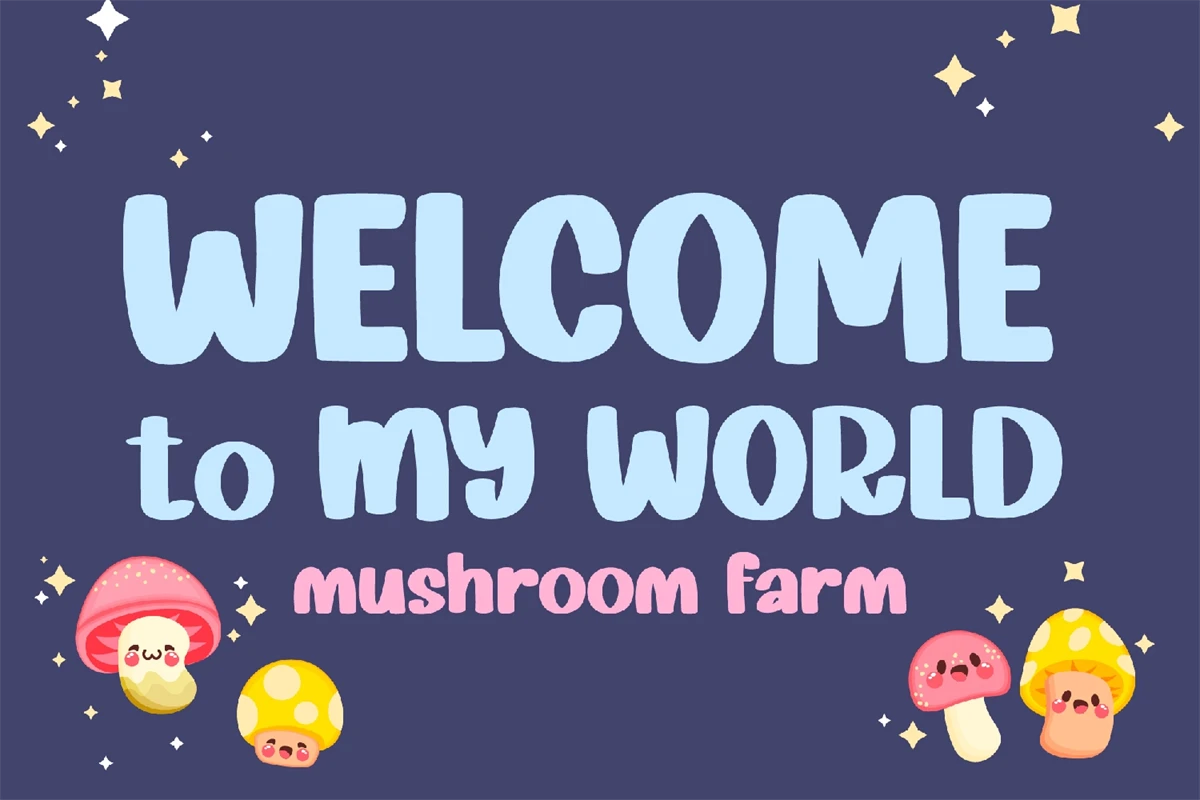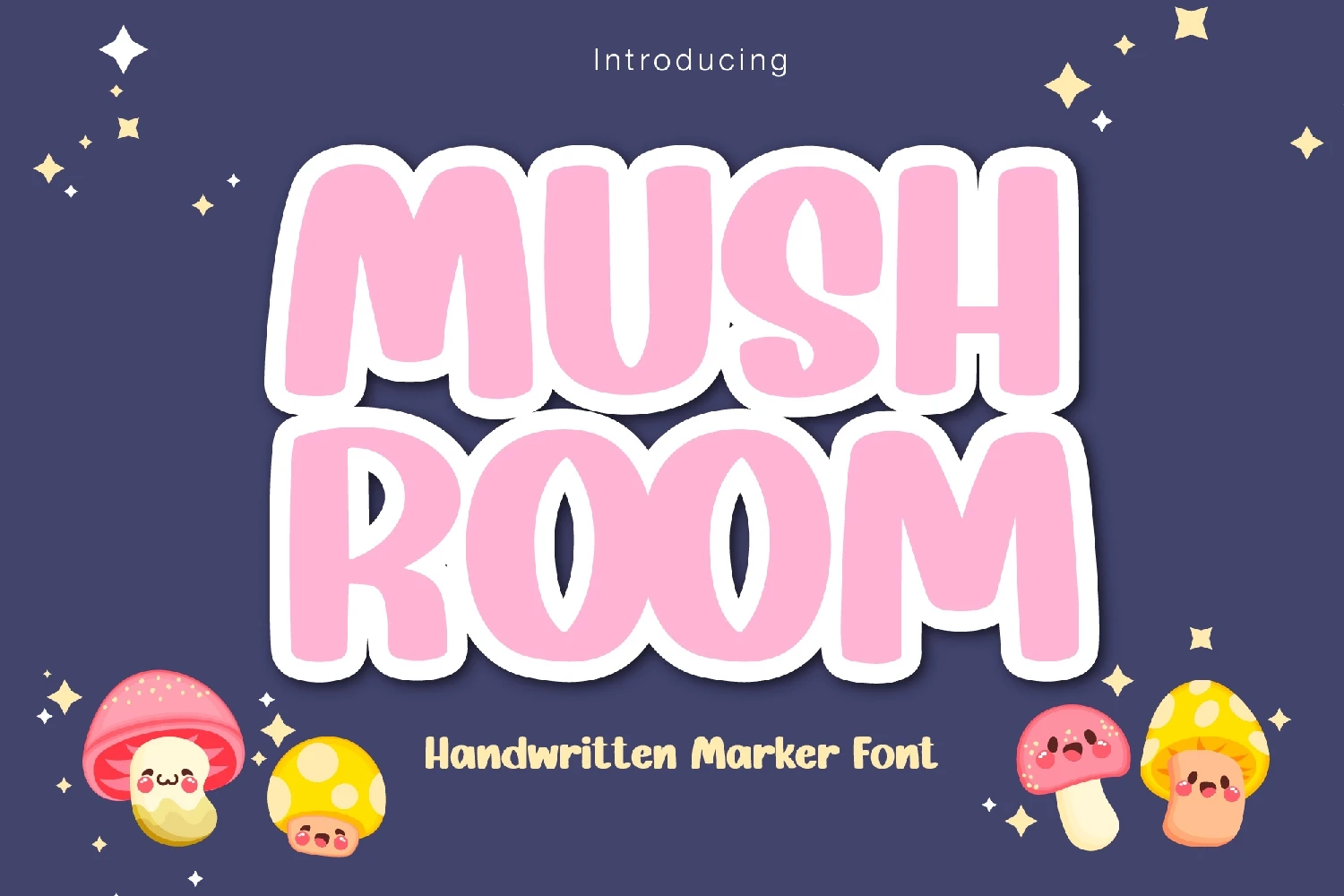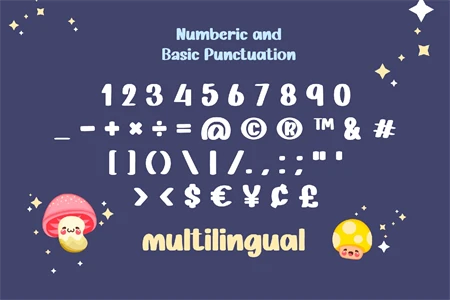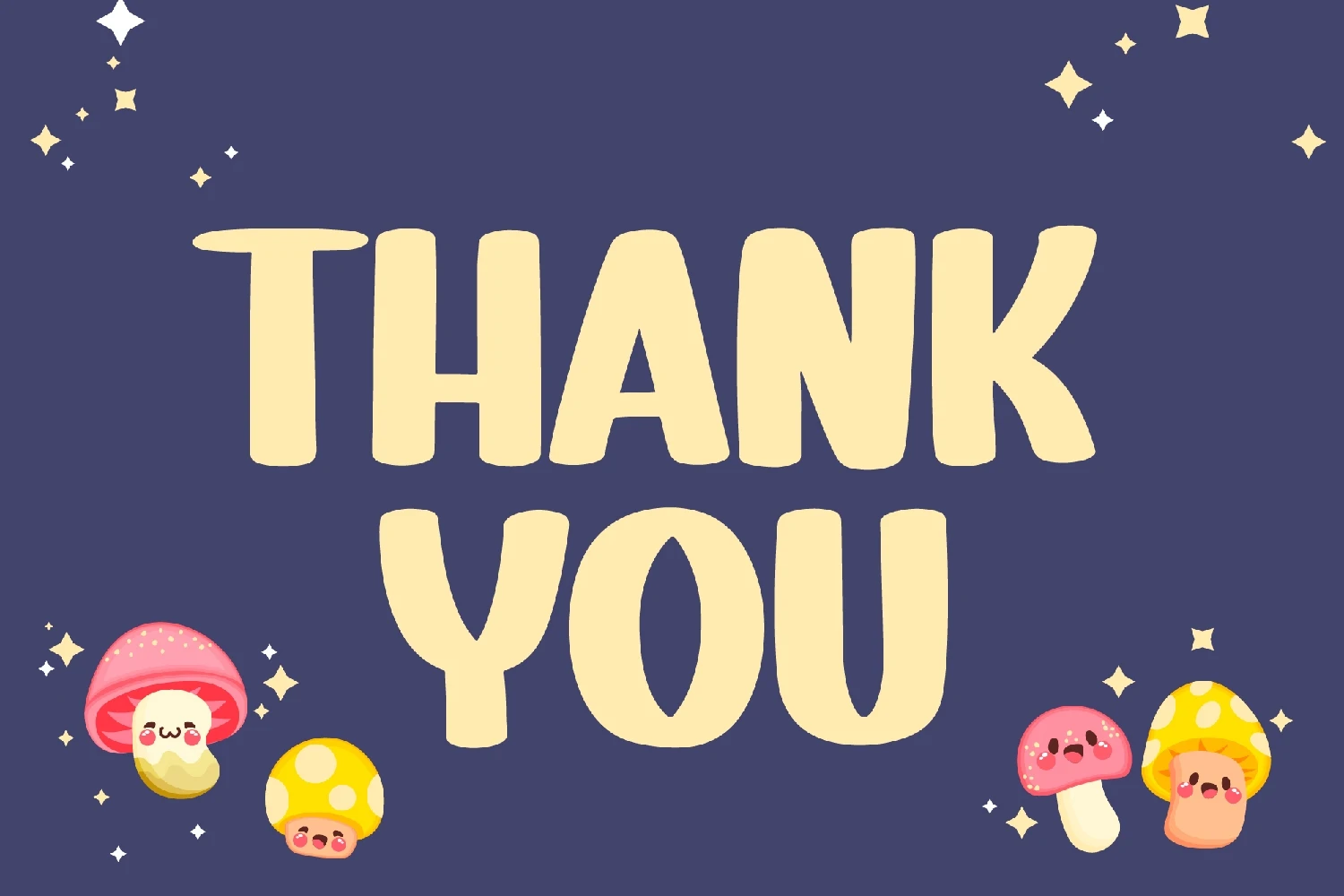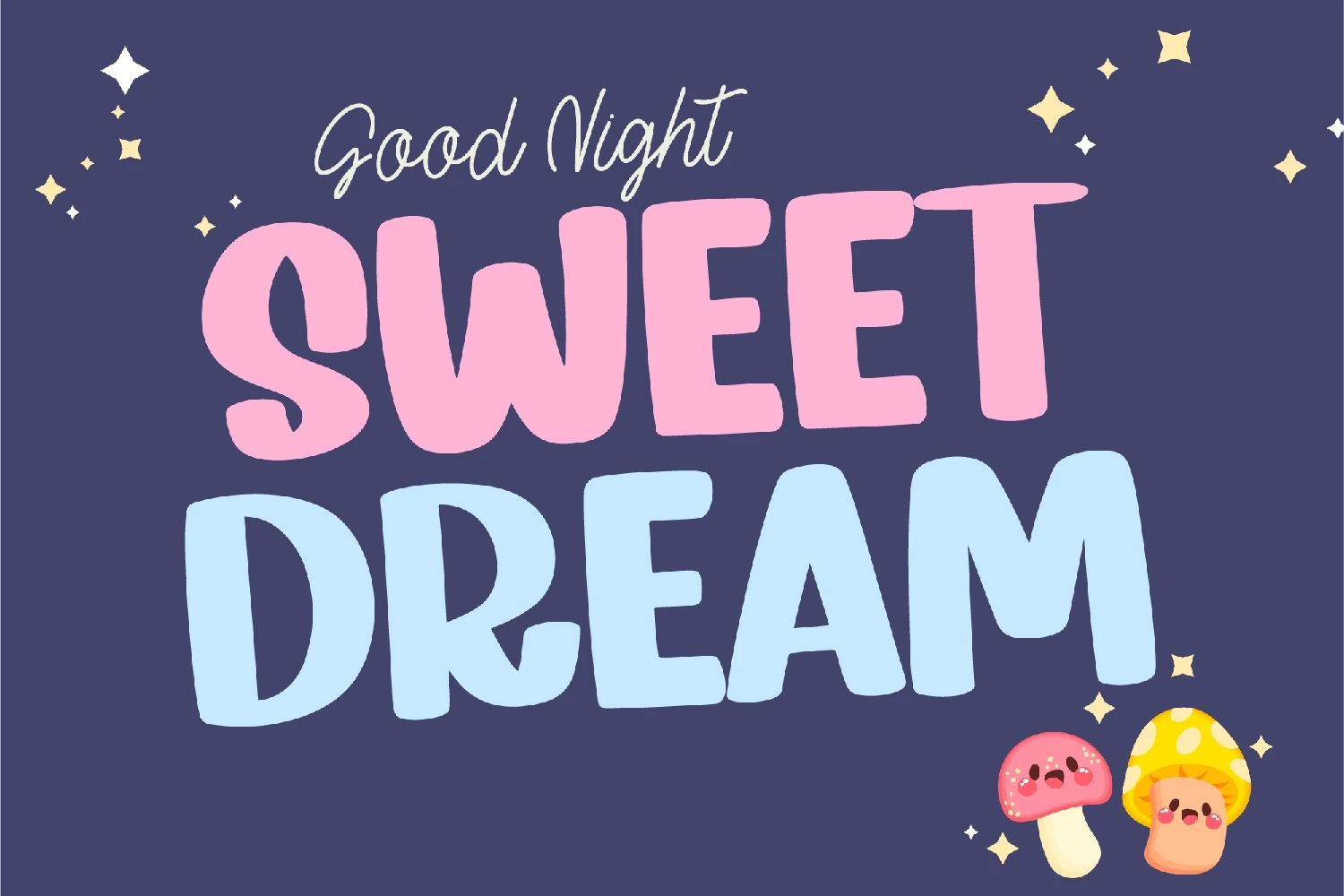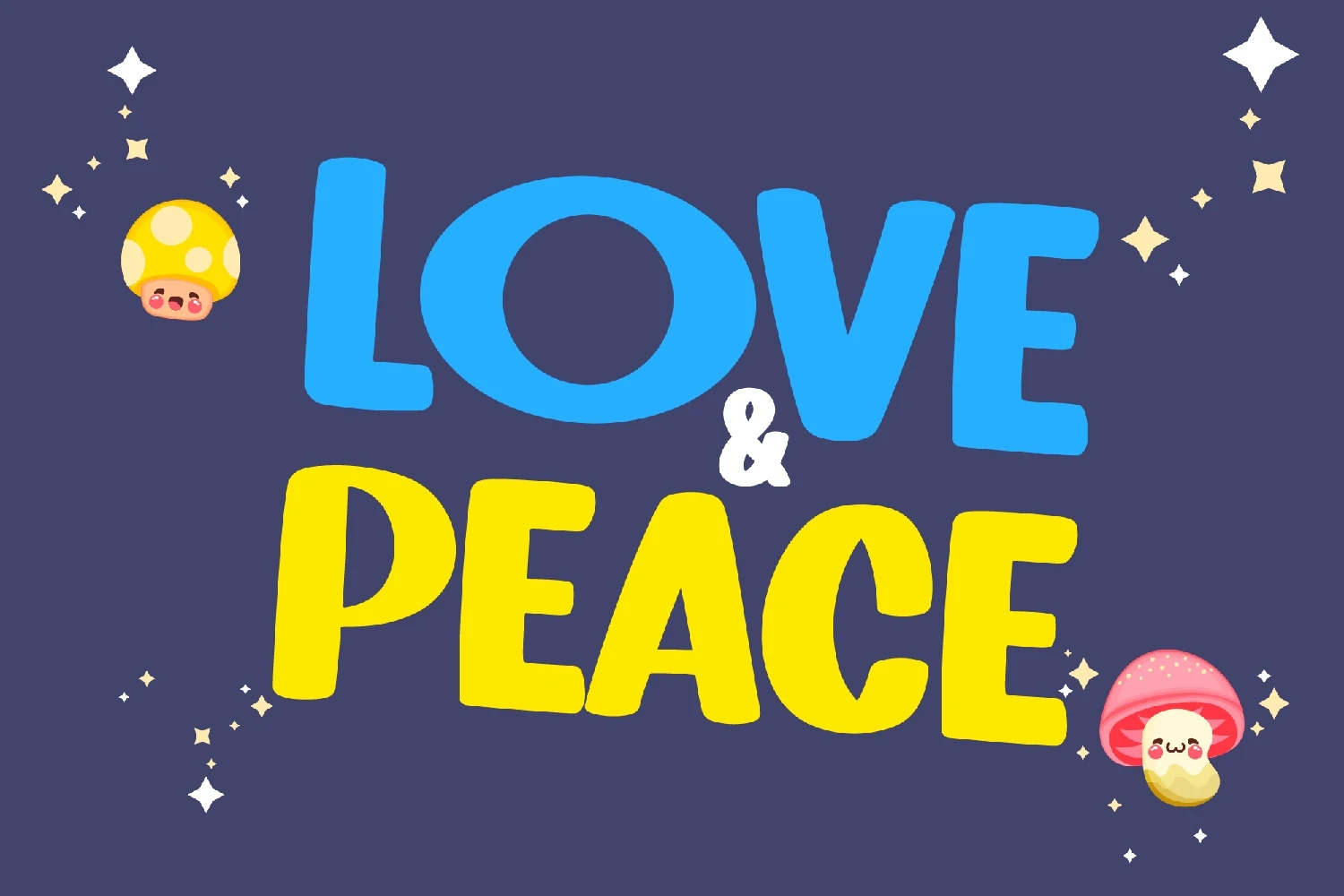
Mushroom is a bubbly, chunky lettered and friendly display font. It embodies playfulness and authenticity and is the perfect choice for any children activity or elementary school design.